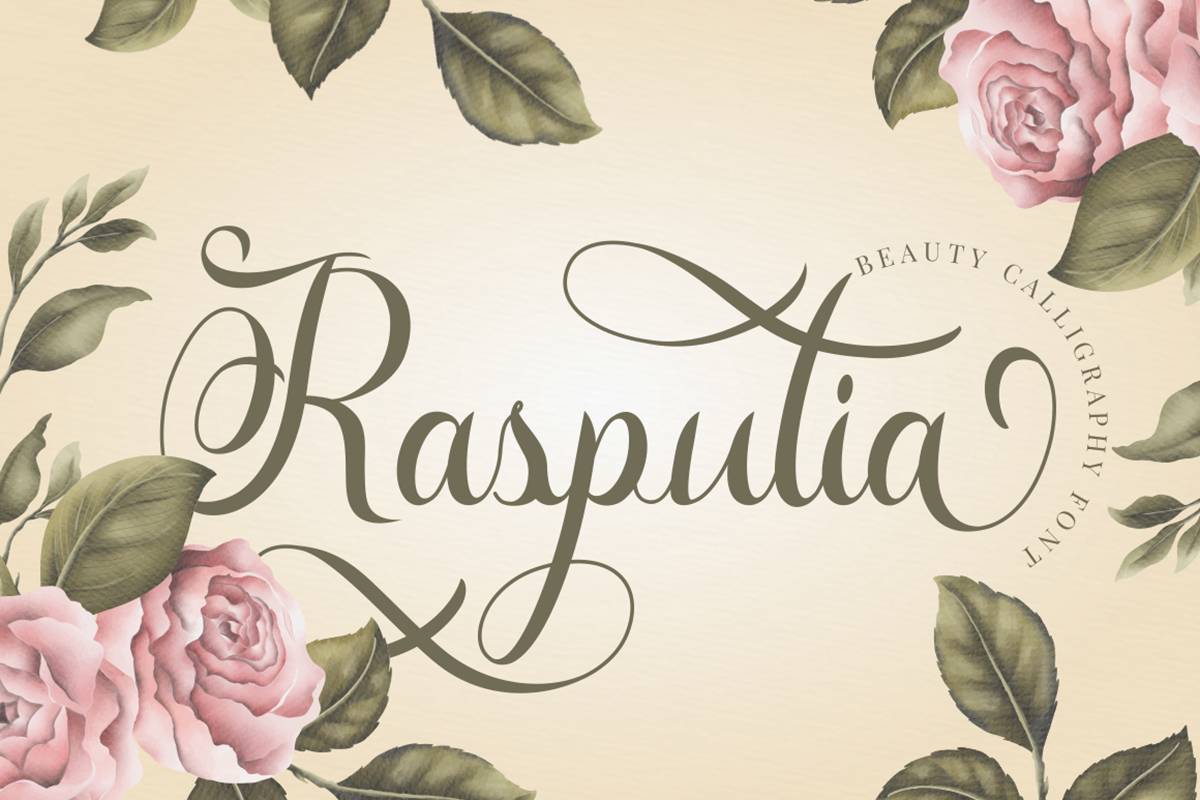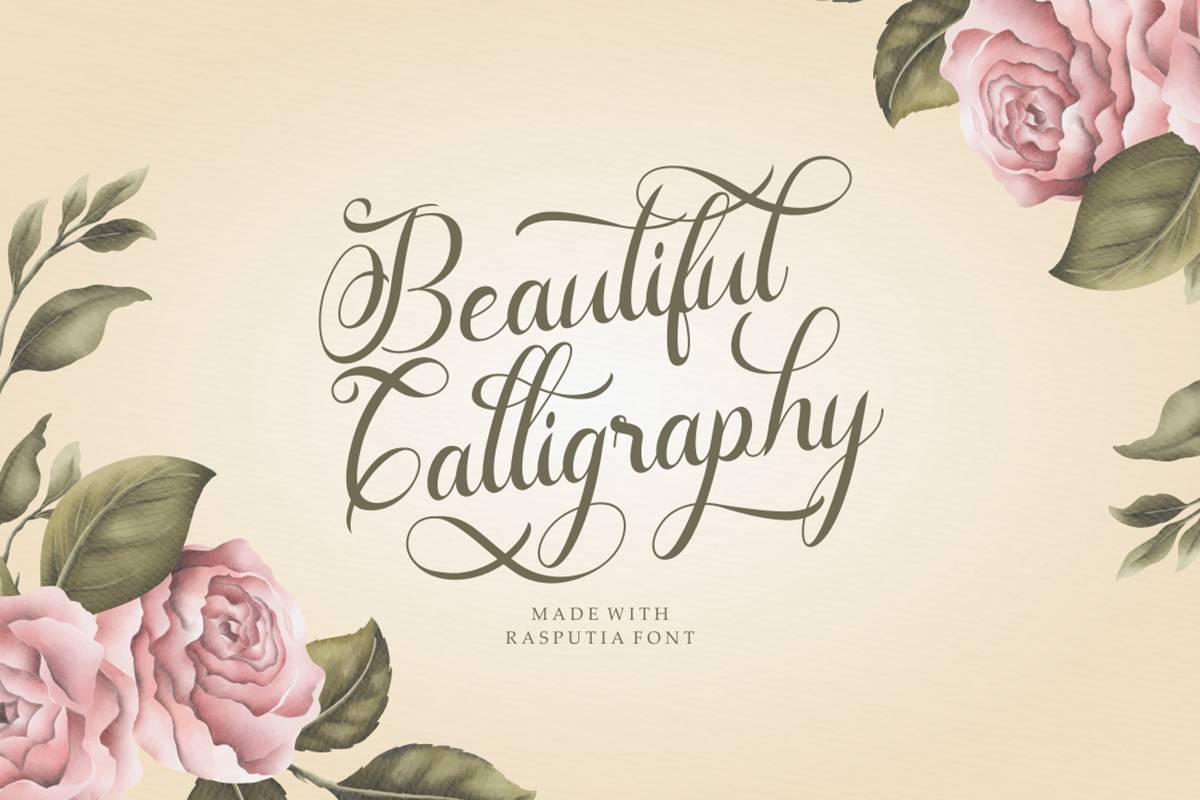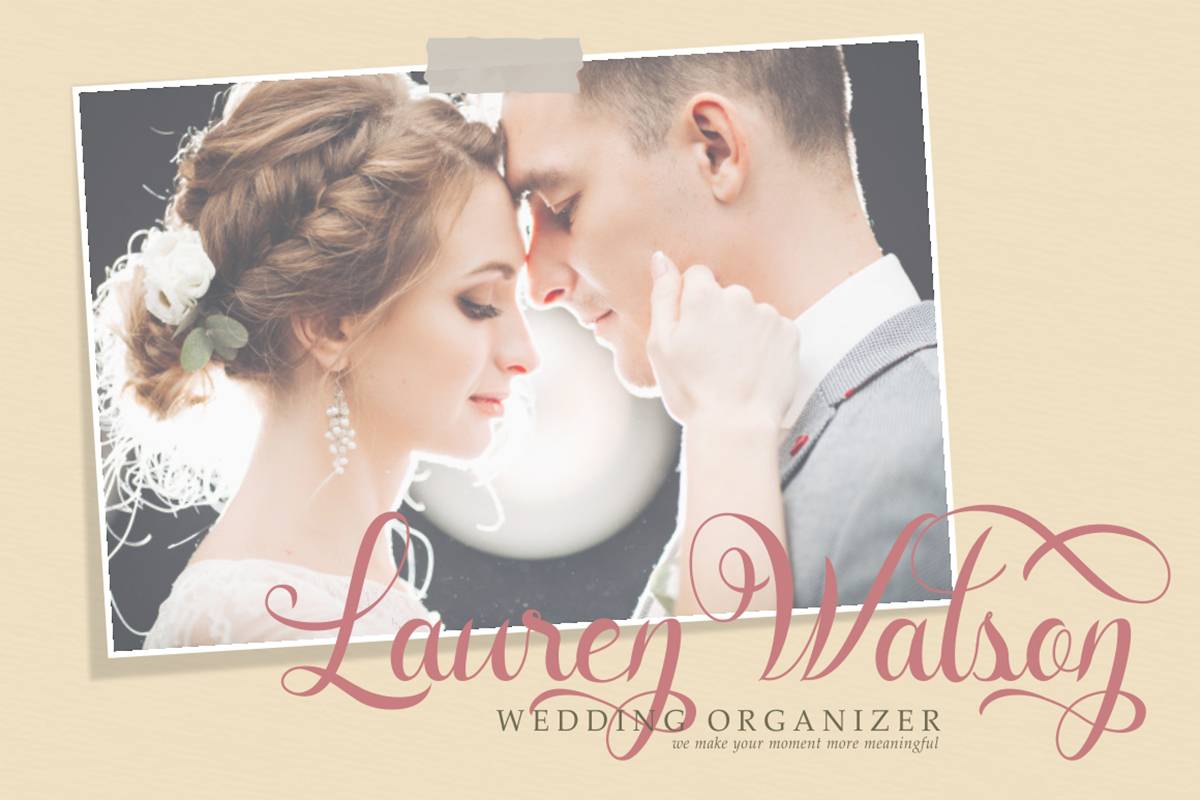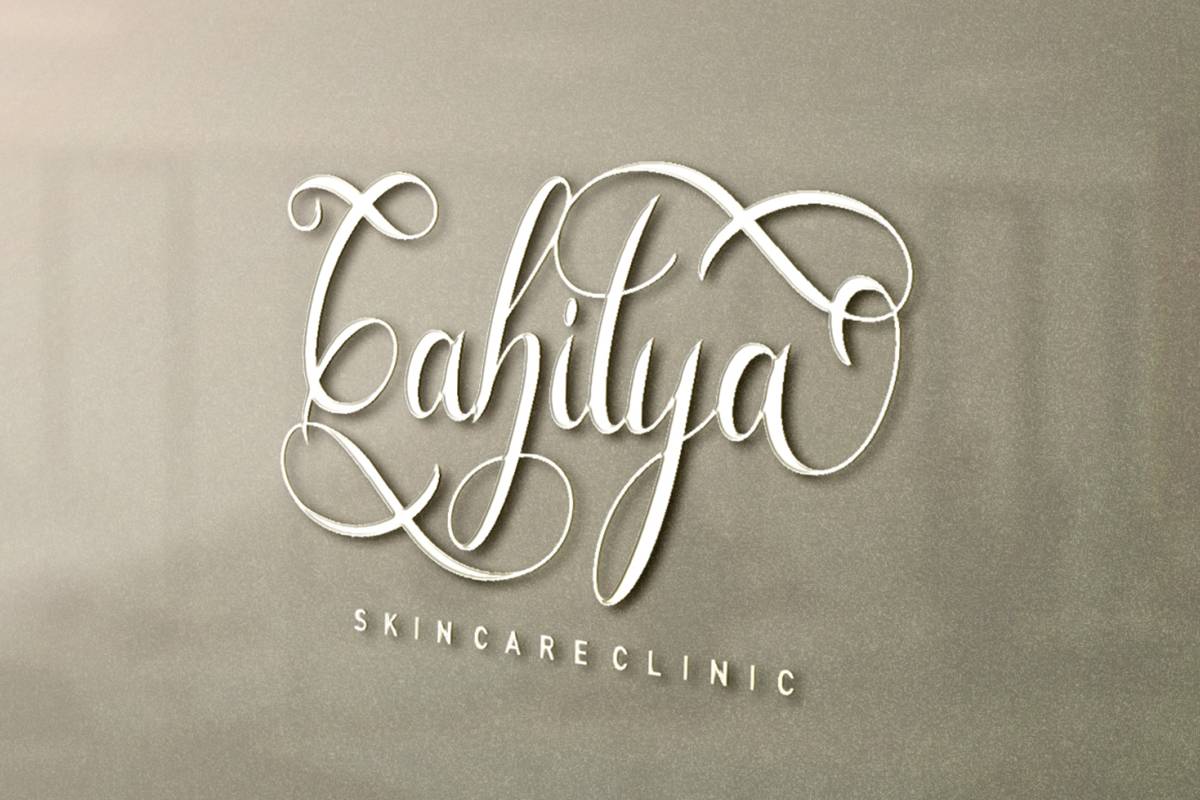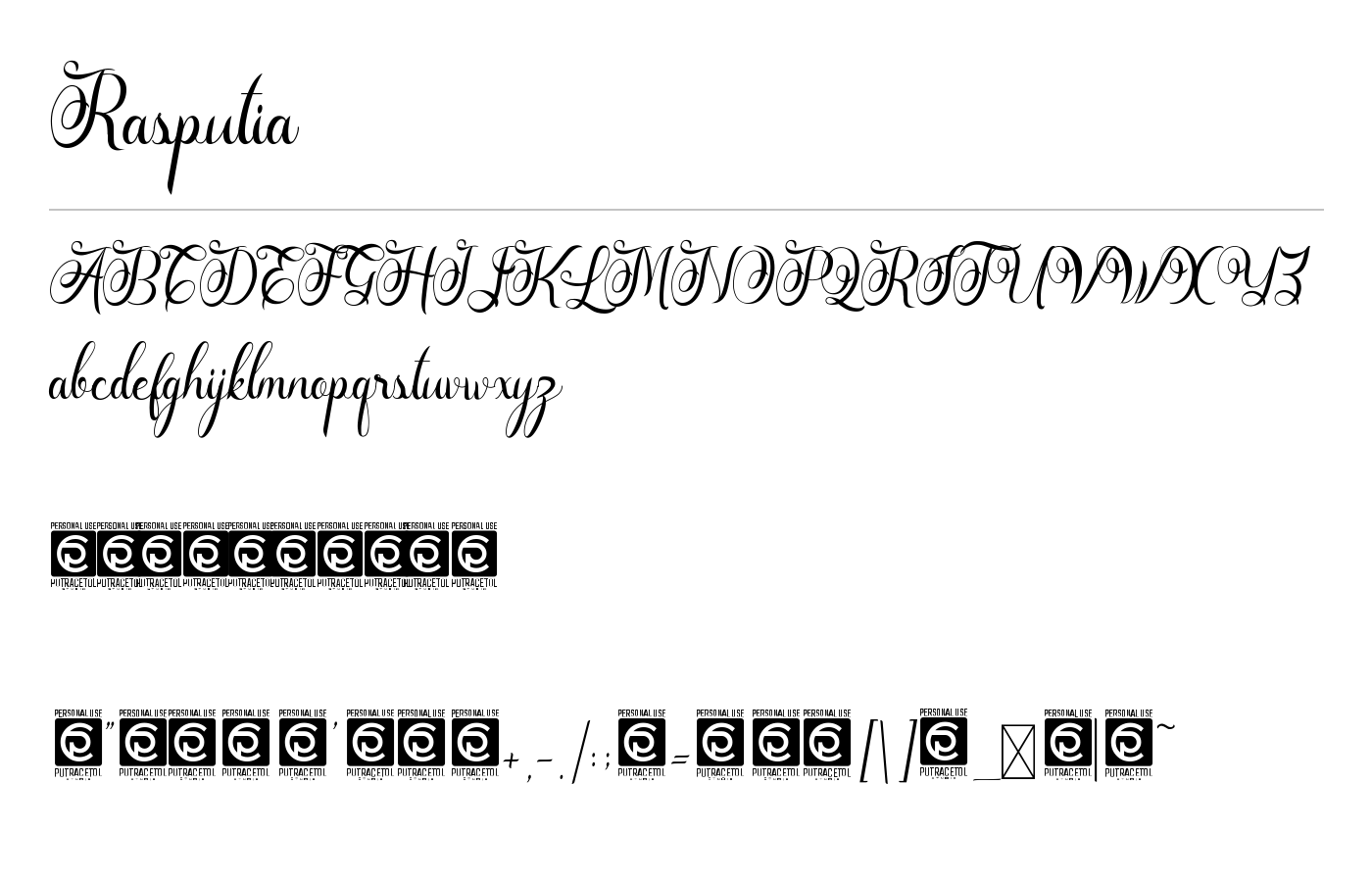
Rasputia is a highly decorative script font featuring elegant, flowing letterforms with intricate swashes and flourishes, particularly in its uppercase characters. Its thin, delicate strokes convey a sophisticated and artistic feel, making it ideal for vintage-inspired designs, invitations, and luxury branding where a touch of refinement and charm is desired. This font works best in headline or display settings where its ornate style can be fully appreciated without compromising readability.
Rasputia Font
About Rasputia Font
| Font family | Rasputia Font |